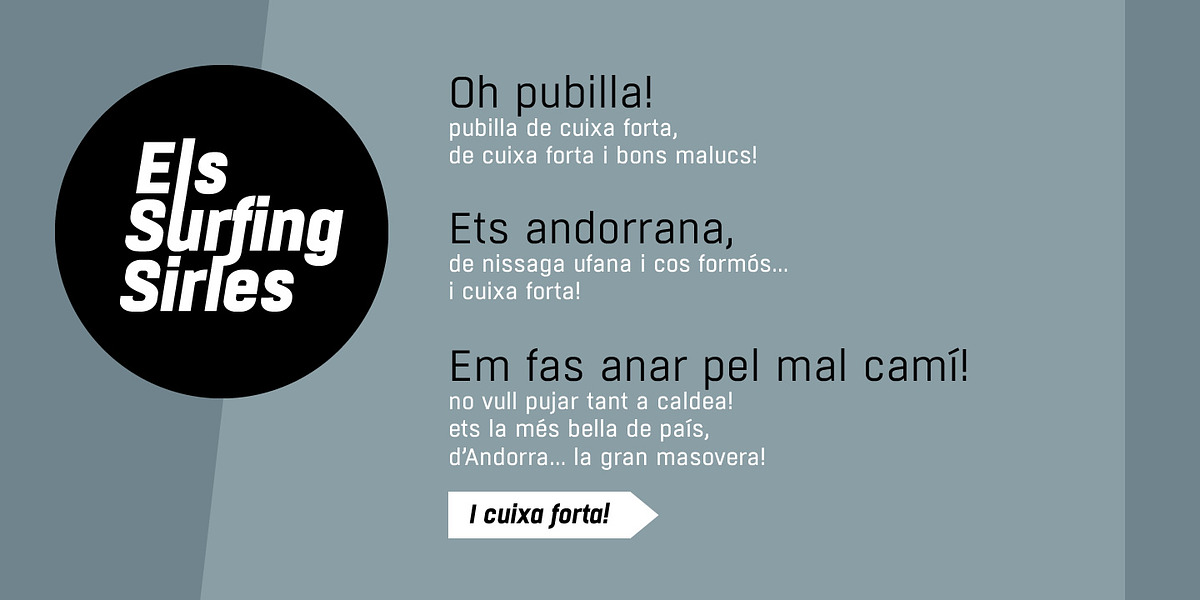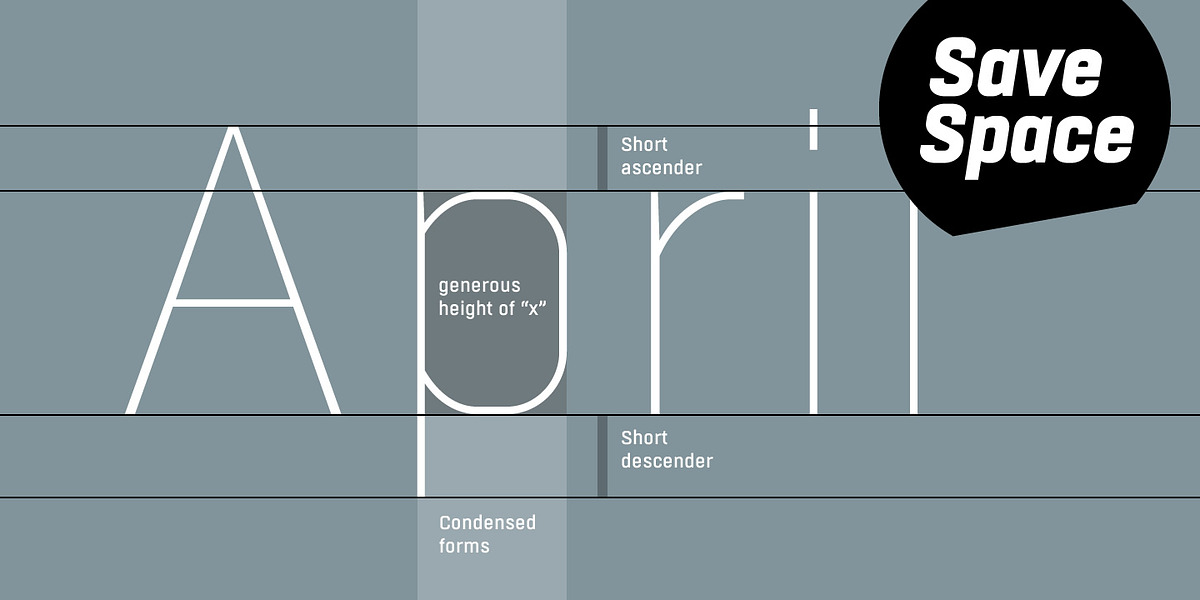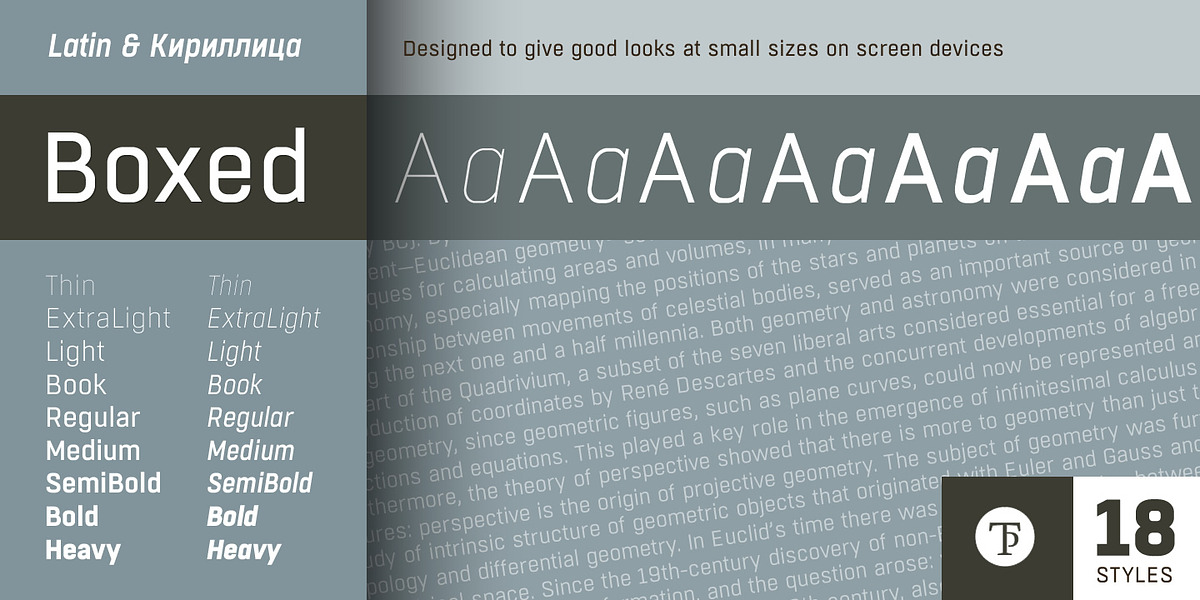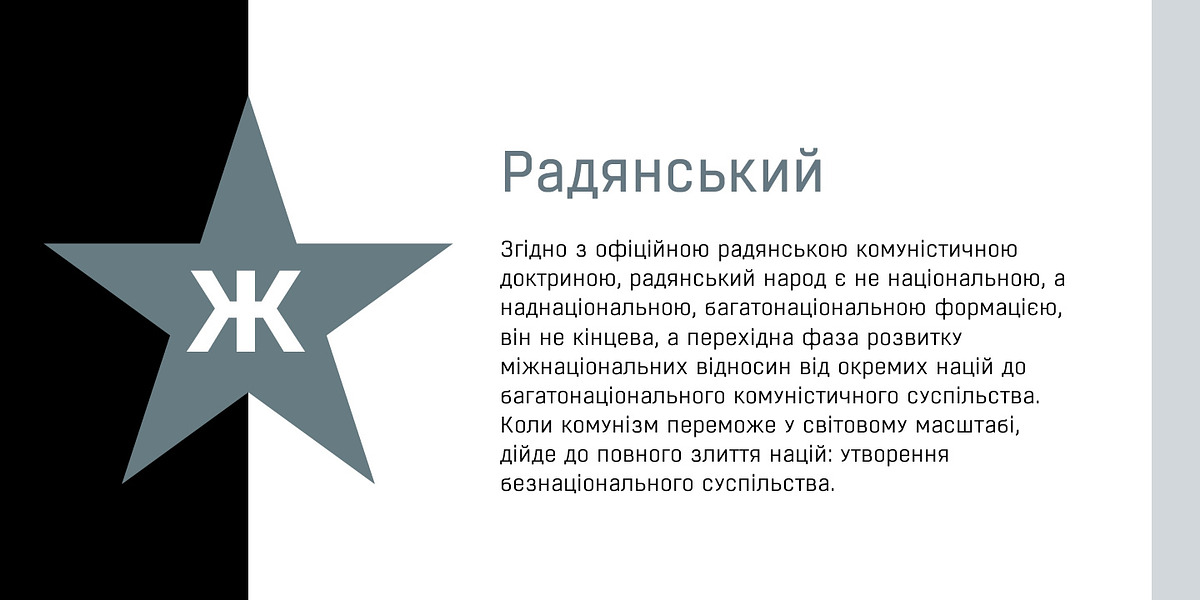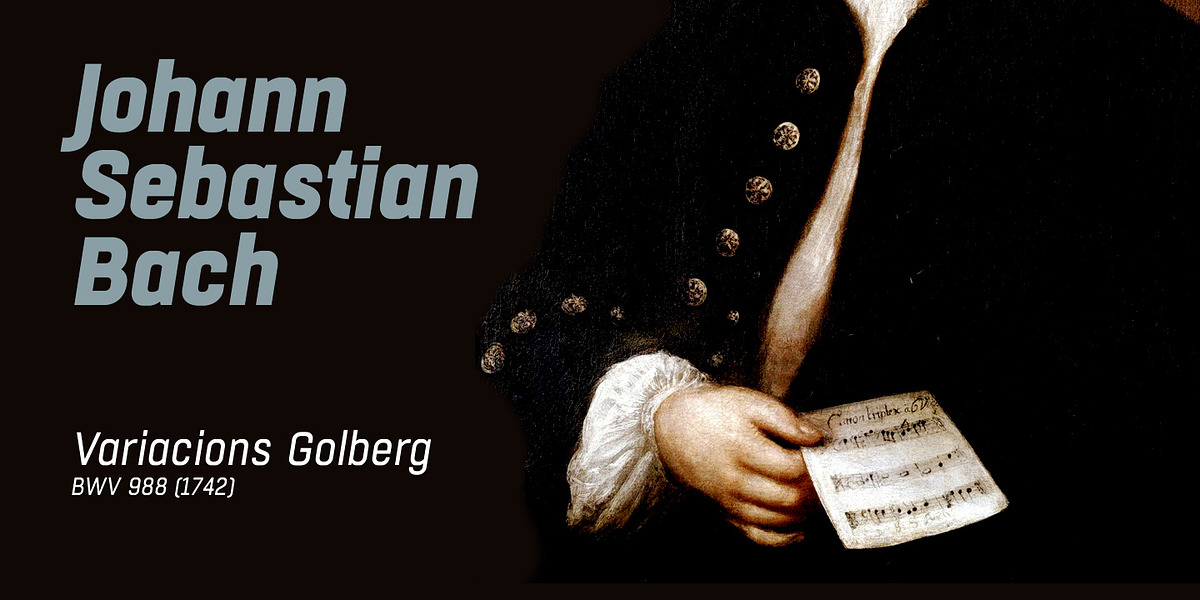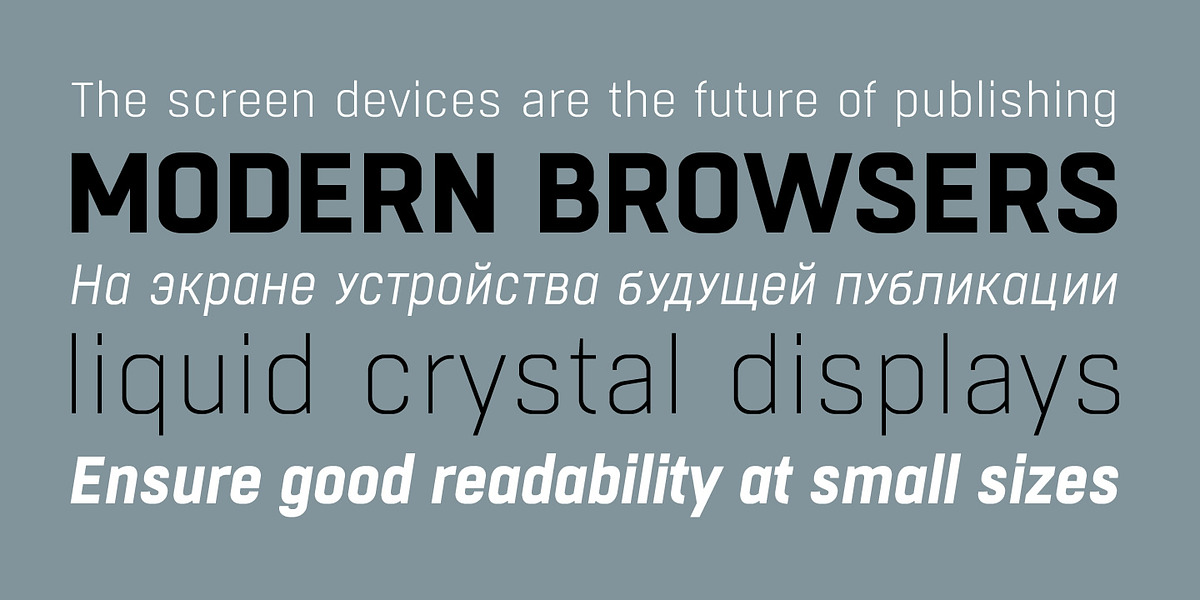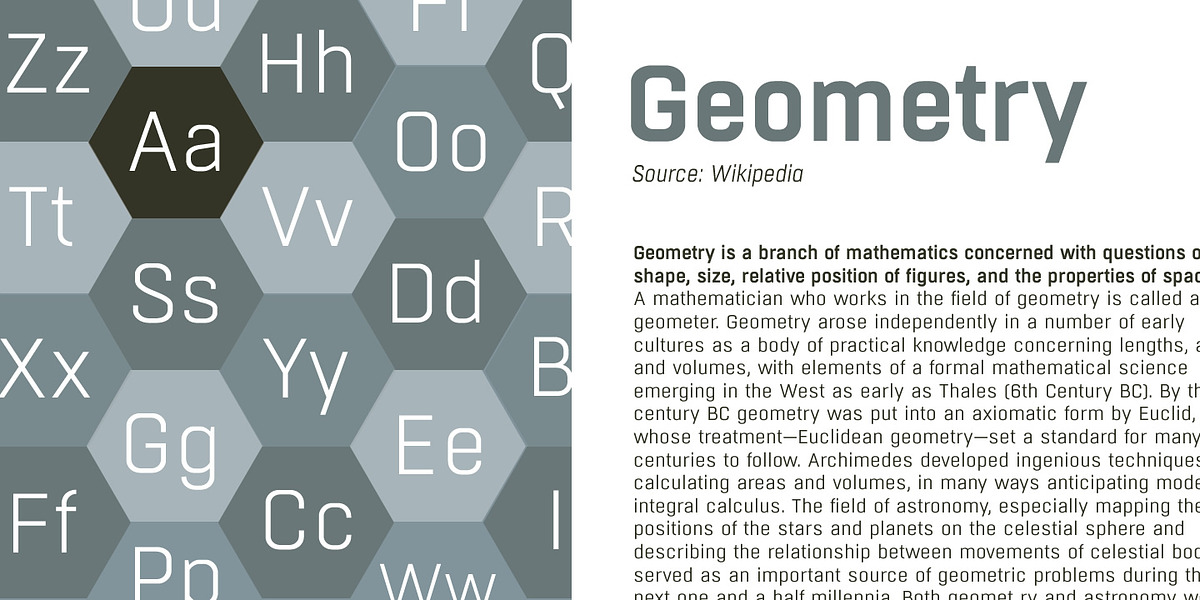
Boxed
Boxed is a versatile neo-grotesque sans serif typeface designed with readability in mind. Its semi-modular geometric shapes are optimized for crisp display on screens, while still offering an elegant appearance in print. With 18 weights, Boxed provides a wide range of typographic options and allows for easy customization through CSS styles.